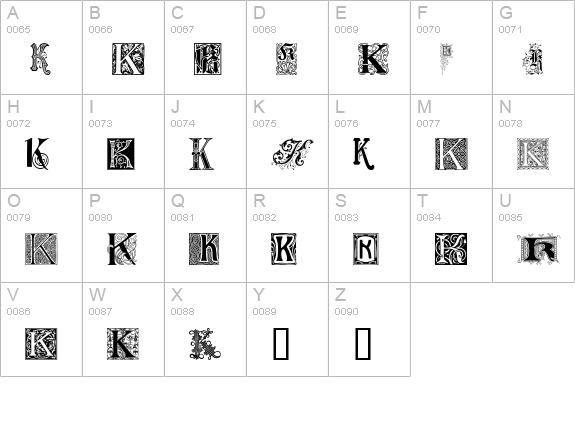
Ornamental Initials K font is a stunning and intricate display typeface that exudes elegance and sophistication. With its ornate detailing and decorative flourishes, this font is perfect for adding a touch of luxury to your projects. The elaborate design of the letter "K" in this font makes it a standout choice for titles, headings, and special occasions. Best of all, Ornamental Initials K font is completely free to download at FontsMarket.com. Whether you're designing invitations, posters, or branding materials, this font will add a touch of grandeur to your work. Don't miss out on the opportunity to enhance your designs with this beautiful and unique typeface. Download Ornamental Initials K font today and elevate your projects to the next level.